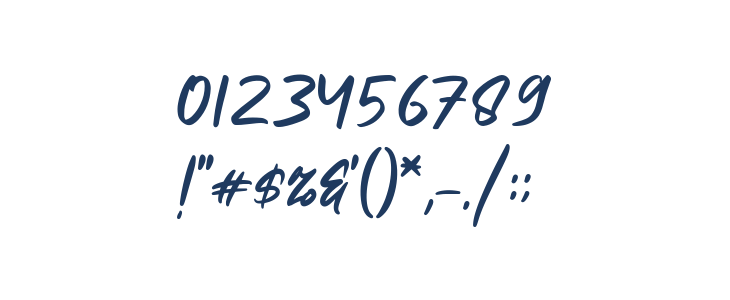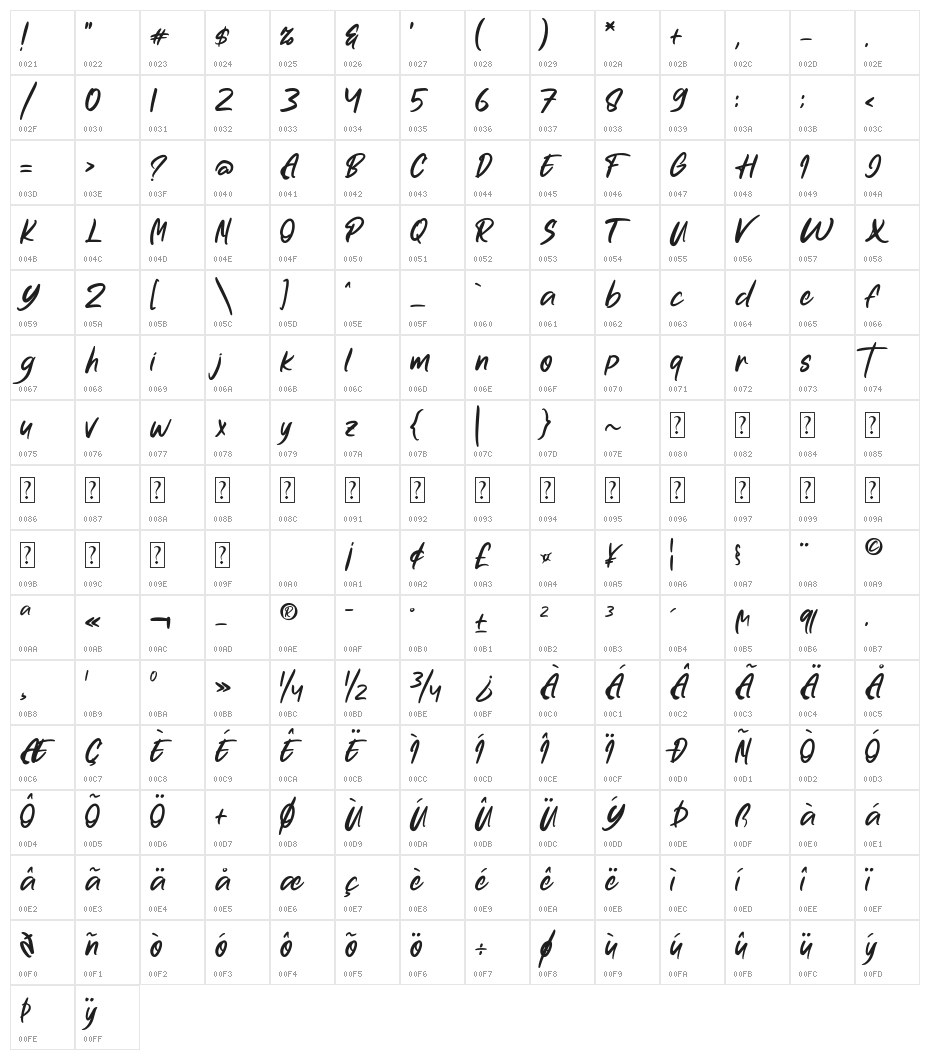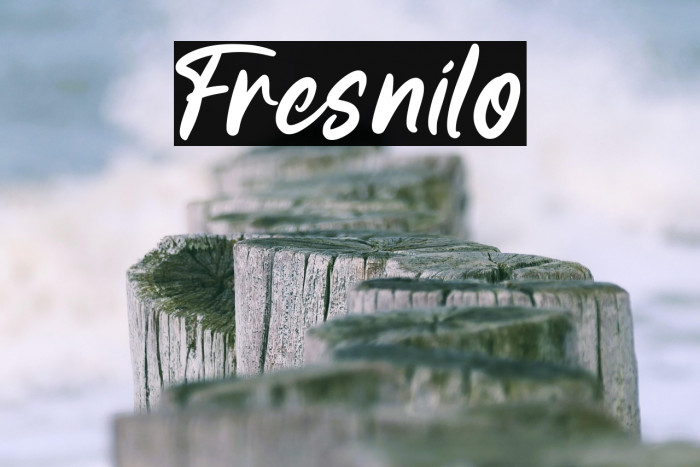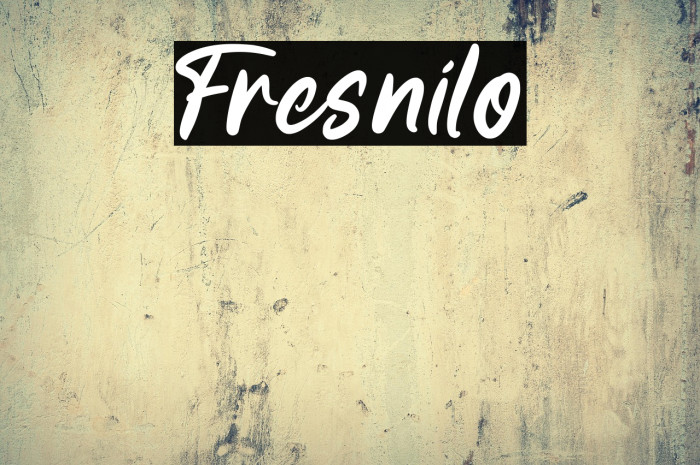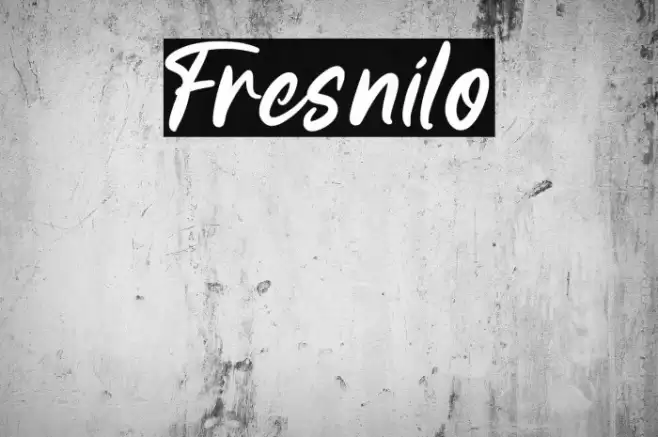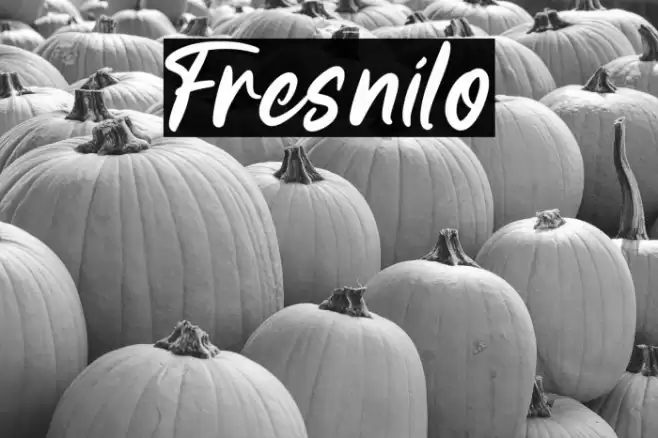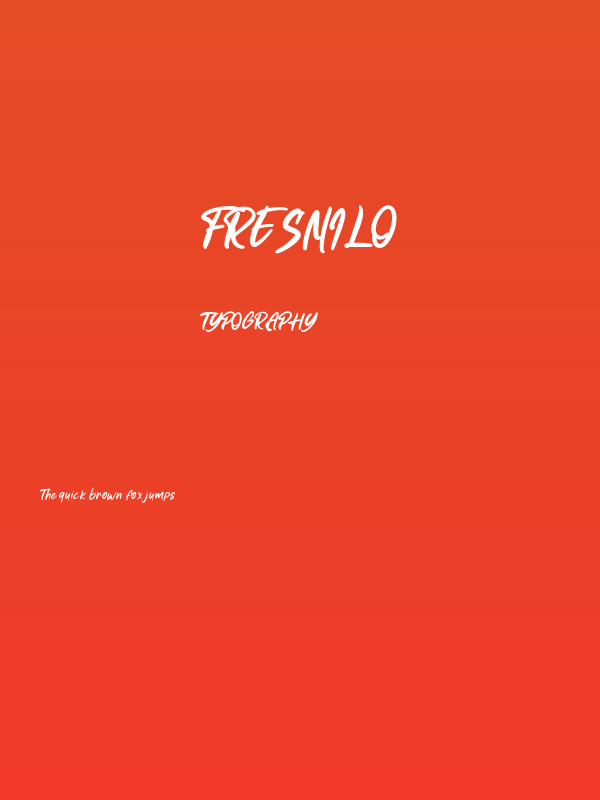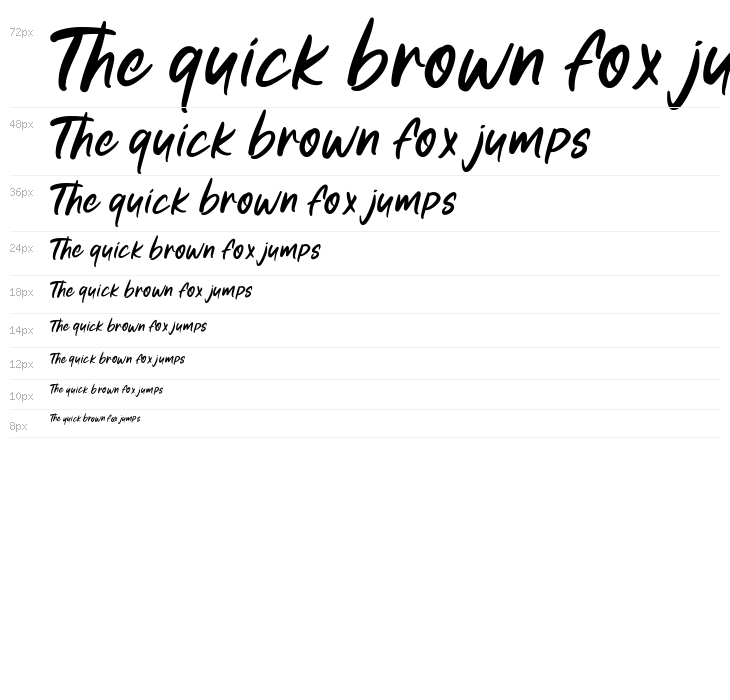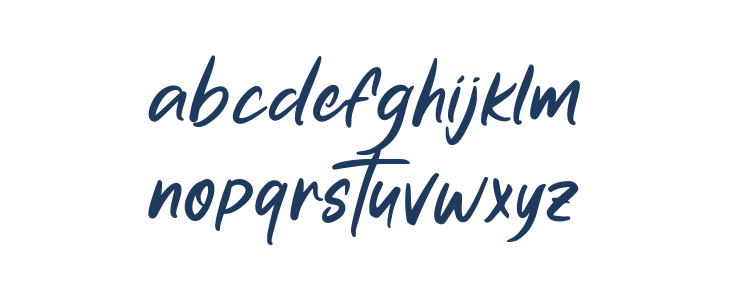
Fresnilo Font
Fresnilo Description
This font features a dynamic and expressive handwritten style, characterized by its fluid strokes and natural flow. The letters are slightly slanted, giving a sense of movement and energy. The uppercase and lowercase letters maintain a consistent style, with rounded edges and smooth curves that enhance readability while preserving a casual aesthetic. The numerals and special characters are crafted with the same attention to detail, ensuring a cohesive look across all elements. This font's design is perfect for projects that require a personal touch, such as invitations, greeting cards, or branding materials that aim to convey warmth and approachability.
| Proposed Projects | Ideal for invitations, greeting cards, personal branding, and creative projects requiring a personal touch. |